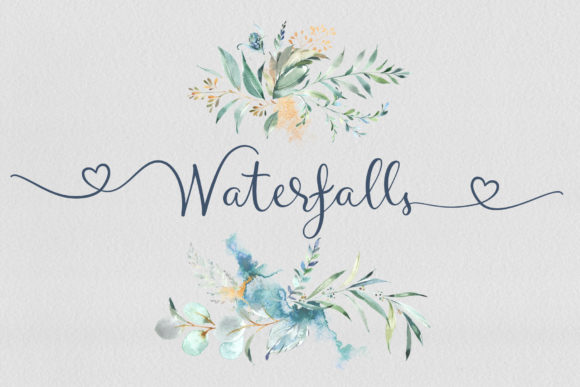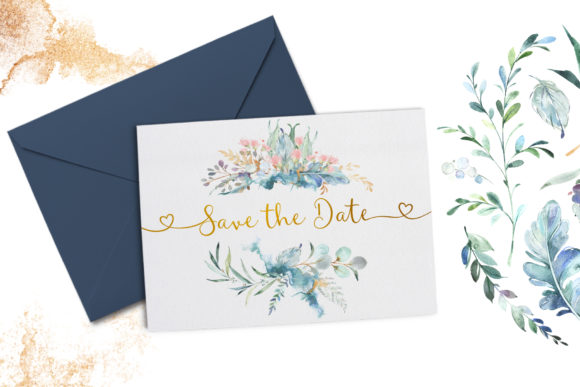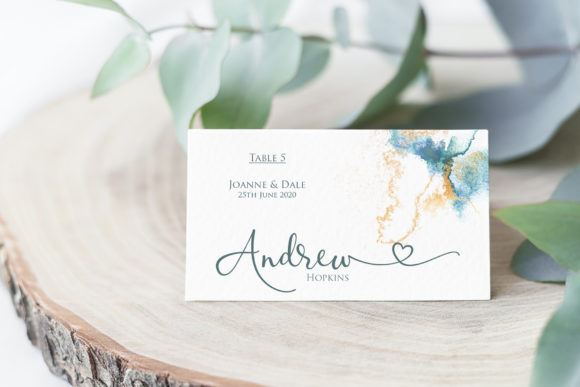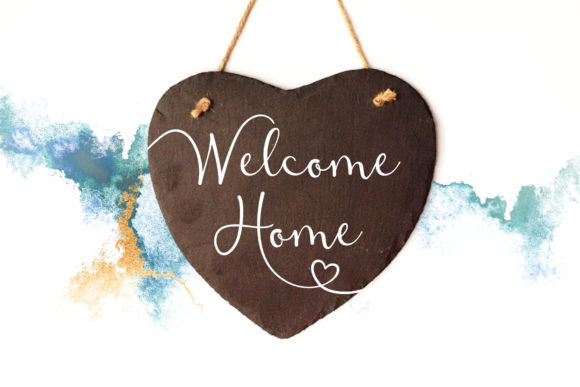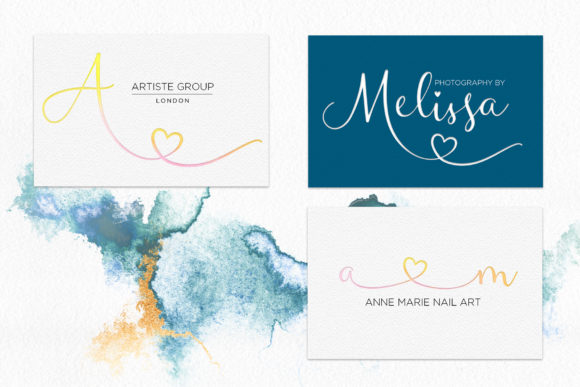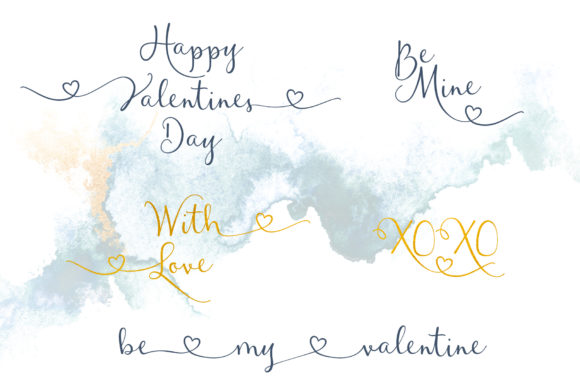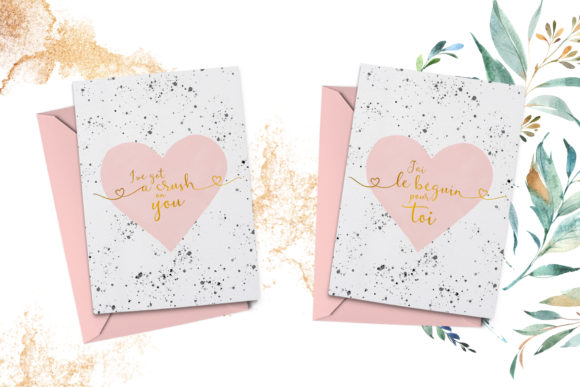
Waterfalls Font
About Waterfalls Font
Waterfalls is an elegant and refined script font which is easy to read and packed with romantic heart swashes. Perfect for greeting cards, baby announcements, wedding stationery, birthday and thank you cards but most of all, anything for your Valentine.